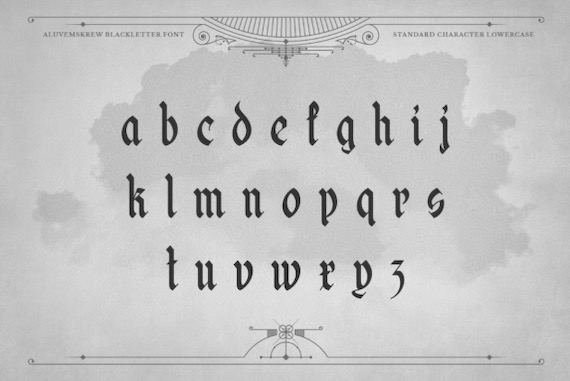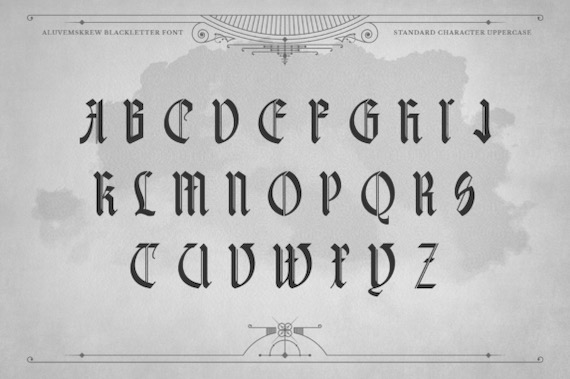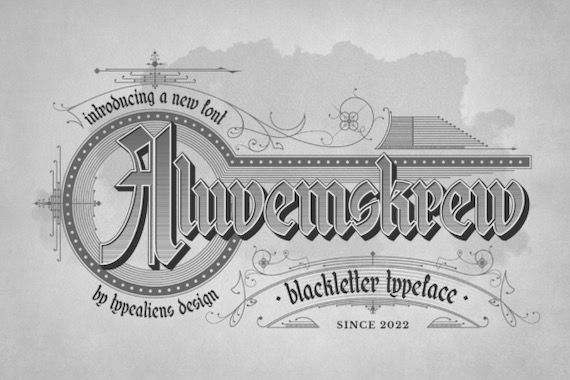
Aluvemskrew is a classic fairly casual blackletter font that was created and shared by Typealiens along with not too many ornaments & strokes. This fancy refined font is neat enough so that it has better legibility than other Blackletters. Even so, it has a retro style, so is suitable for creating classic or retro designs such as liquor branding, studio tattoos, or classic motorcycles.
Aluvemskrew Blackletter Font